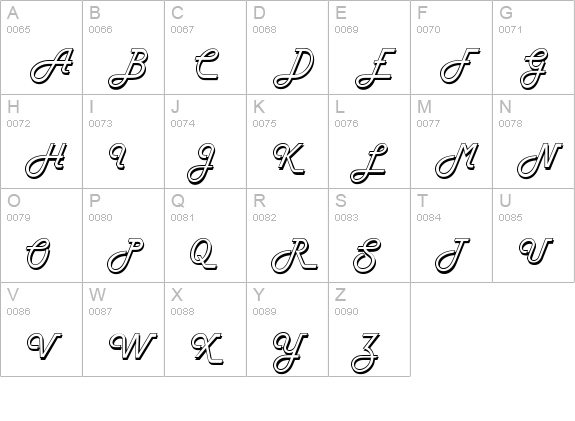
Harlow Std Font Details
Harlow Std is a timeless and elegant font that exudes sophistication and grace. With its sleek and refined letterforms, it effortlessly captures the essence of classic typography. The clean lines and smooth curves of Harlow Std make it a versatile choice for a wide range of design projects, from elegant invitations to luxurious branding. What sets Harlow Std apart is its accessibility. This font is not only visually stunning but also freely available to download at FontsMarket.com. Whether you are a professional designer or a hobbyist, you can easily access this font without any cost. This makes Harlow Std the perfect choice for those who value both quality and affordability. The beauty of Harlow Std lies in its versatility. Its timeless design makes it suitable for a variety of applications, including editorial design, packaging, logos, and more. Whether you want to add a touch of sophistication to your wedding invitations or create a luxurious brand identity, Harlow Std is a font that will never disappoint. Furthermore, Harlow Std is exceptionally legible, ensuring that your message is conveyed with clarity and precision. Its well-balanced letterforms and generous spacing make reading a breeze, enhancing the overall user experience. This font is a testament to the careful craftsmanship and attention to detail that went into its creation. Harlow Std is a font that seamlessly combines beauty and functionality. Its free availability on FontsMarket.com allows designers of all levels to access this stunning typeface and bring their creative visions to life. So why settle for less when you can have Harlow Std? Download it now and elevate your designs to new heights of elegance and professionalism.